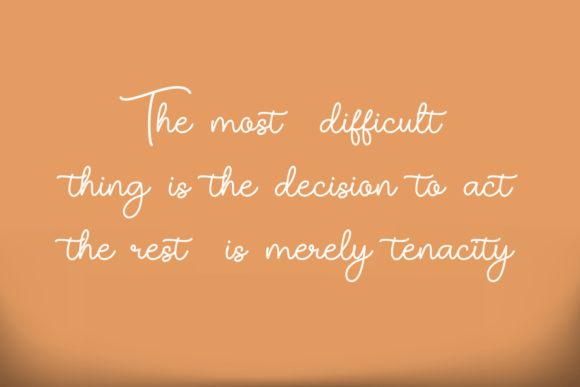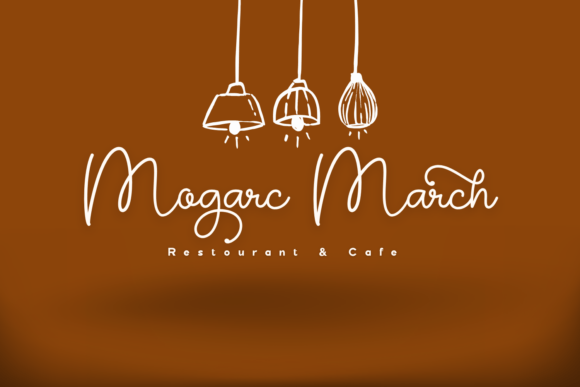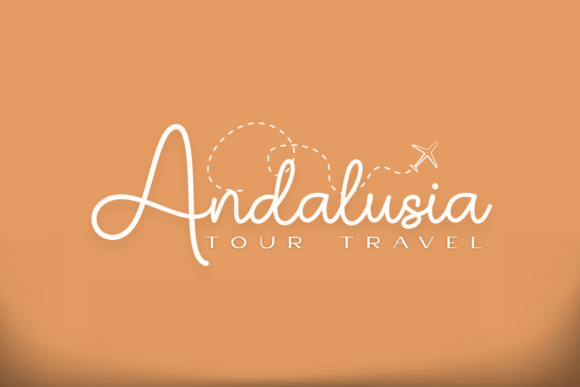
Introduction to Morettagi Font
As designers, we’ve all been there – staring at a blank canvas, searching for the perfect font to bring our creative project to life. It’s that moment when the words start flowing, and the design begins to take shape. For many of us, that moment is when we discover the perfect font – one that speaks to our vision, adds a touch of elegance, and makes our design truly special. Meet the Morettagi Font, a beautifully crafted monoline script that embodies the essence of romance and charm.
With its smooth and elegant strokes, the Morettagi Font is the perfect design resource for any creative project. Whether you’re designing wedding invitations, branding materials, or love notes, this font adds an intimate and sophisticated touch that’s hard to resist. Its high-quality design makes it ideal for a wide range of applications, from digital to print, and even web design. And the best part? You can get the Morettagi Font for free download, making it an invaluable asset for any designer looking to elevate their designs with a touch of love and elegance.
- Unique characteristics include a modern and elegant design aesthetic
Honest Review: Morettagi Font
I recently came across the Morettagi Font, and I must say it’s a solid addition to any designer’s toolkit. As a design resource, it offers a unique blend of elegance and playfulness that can elevate a creative project to the next level.
What works well: ✨ The Morettagi Font has a beautiful, hand-drawn feel that lends itself perfectly to creative applications. The high-quality design ensures that the font looks great in a variety of contexts, from body text to headings. Additionally, the font includes a transparent background option, making it easy to layer over complex backgrounds.
- High quality: The font’s design is crisp and clean, ensuring that it looks great at a variety of sizes and resolutions.
Limitations: ⚠️ While the Morettagi Font is an excellent addition to any designer’s toolkit, it may not be suitable for all projects. The font’s playful feel may not be the best fit for more formal or corporate applications.
Overall, I’m impressed with the Morettagi Font. Its unique blend of elegance and playfulness makes it an excellent option for designers looking to add some personality to their creative projects.
The Morettagi Font is a versatile design resource that can be used in a variety of creative projects, including branding, marketing materials, and social media graphics. Its high-quality design makes it an excellent choice for designers looking to add a professional touch to their work.